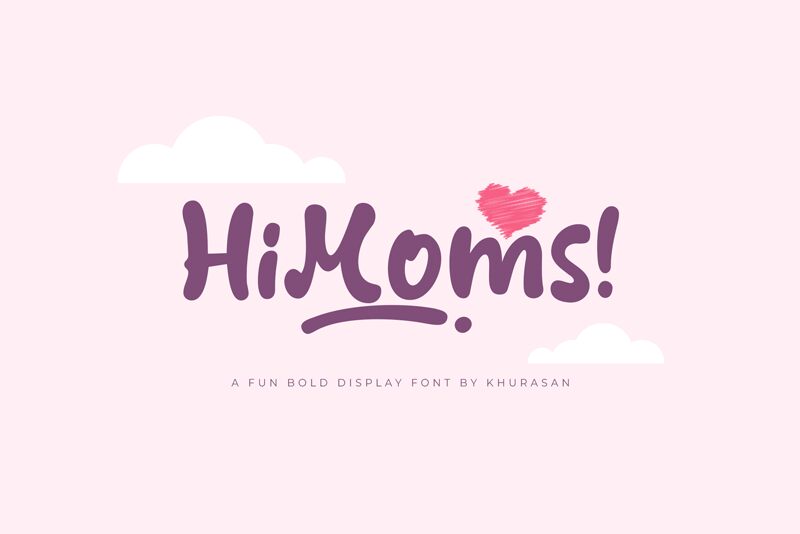
HiMoms
HiMoms is the playful and dynamic display font designed by Khurasan. With its bold weight and cartoon style, this font is perfect for a wide range of creative projects, from children's books to branding for quirky startups. Its expressive curves and unique character make it an ideal choice for anyone looking to add a touch of fun to their design work. Whether you're creating posters, packaging, or social media graphics, HiMoms will bring your ideas to life with its bold personality. Get ready to stand out with this one-of-a-kind semi-bold font that's perfect for any project that demands attention!